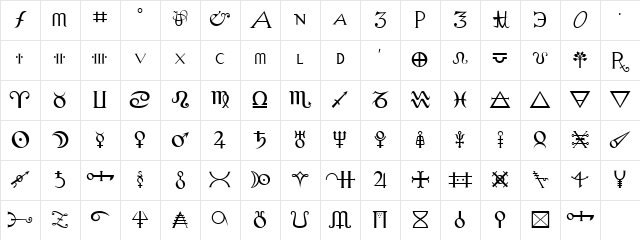
Alchemy Regular
Alchemy Family
Design Context for Alchemy
Alchemy is a composed and adaptable typeface that performs quietly and consistently across a wide range of design contexts.